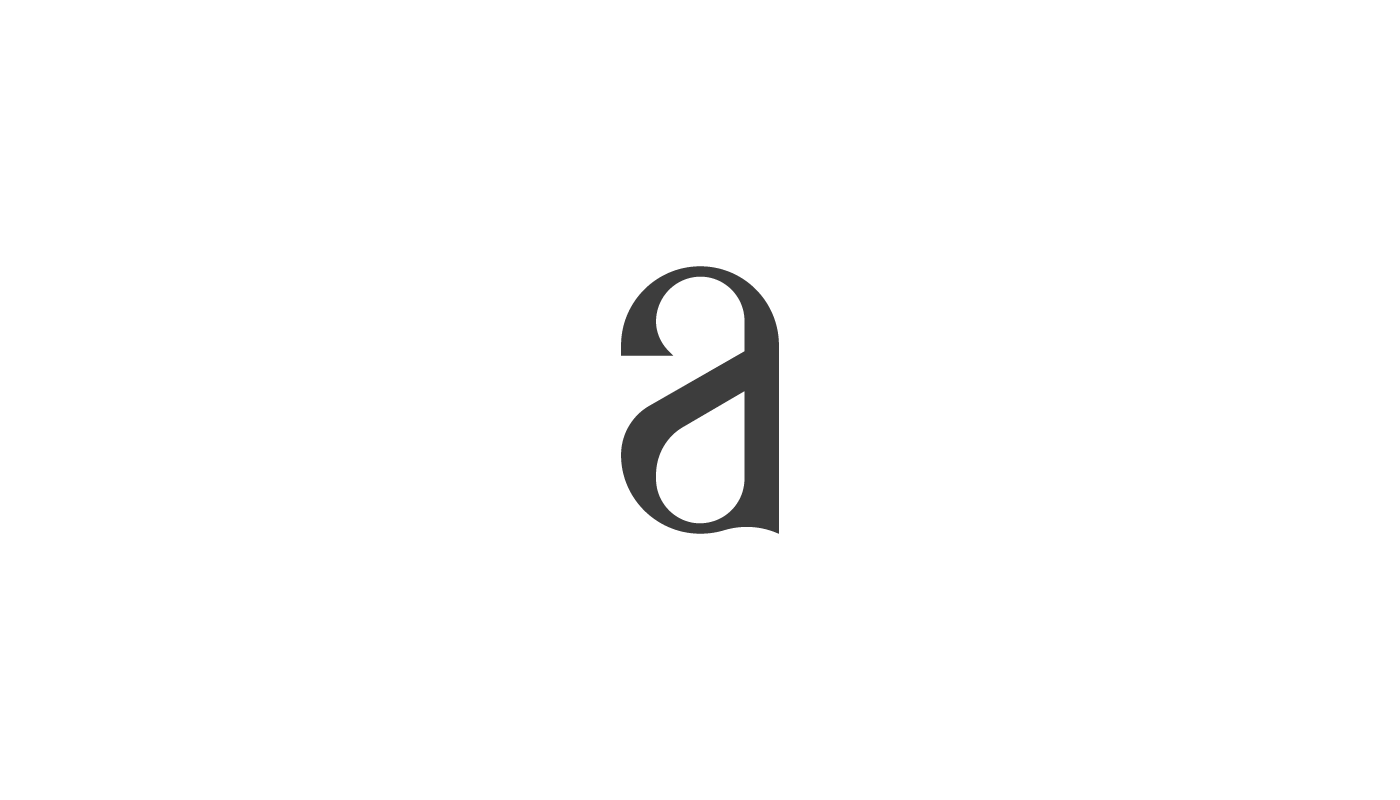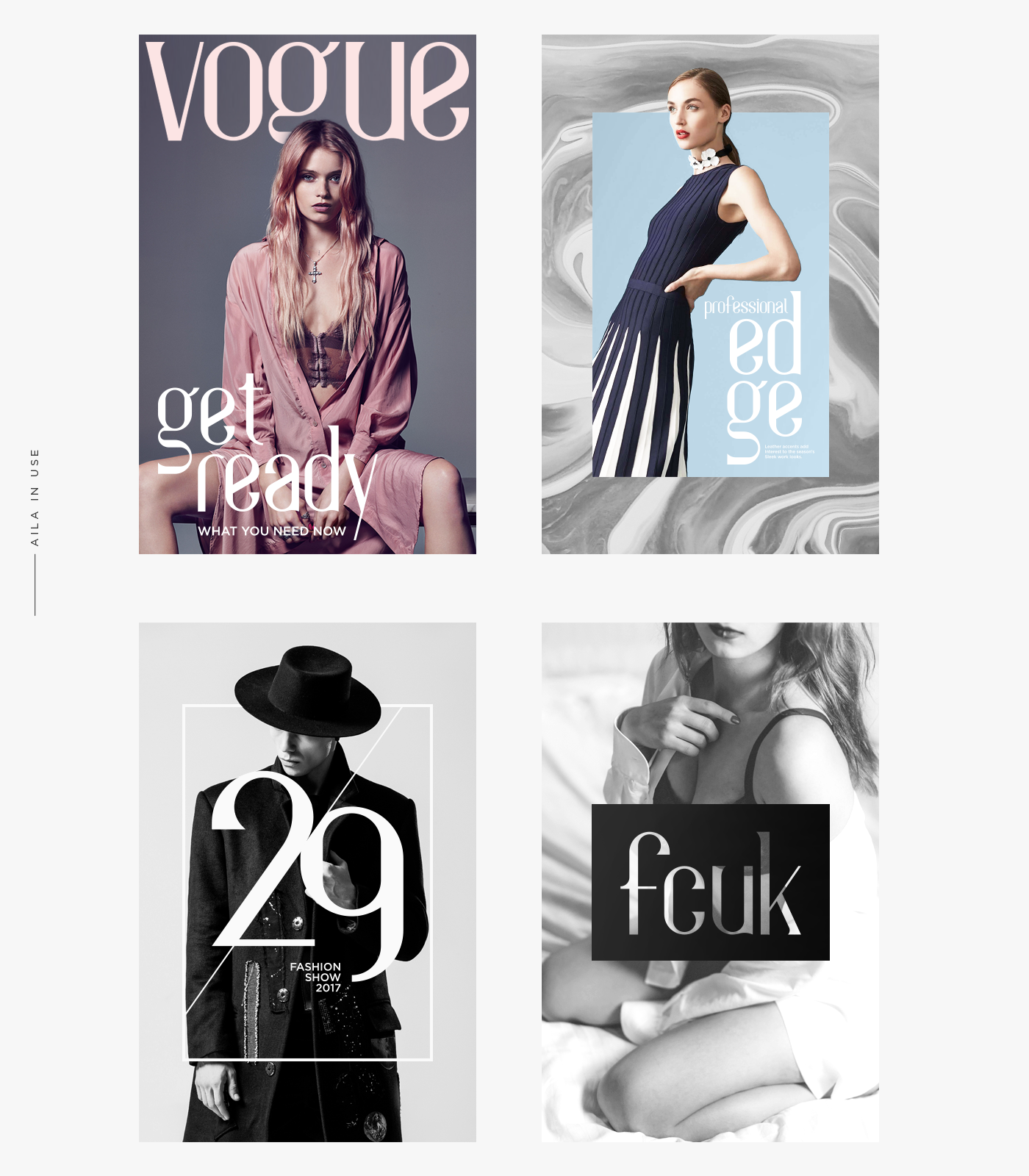
Looking for a fashionable font? Then feast your eyes on Aila! Created by Shibu PG from India, Aila Font is the perfect choice for any sort of fashion magazine-type project, for posters, covers, branding and many more!